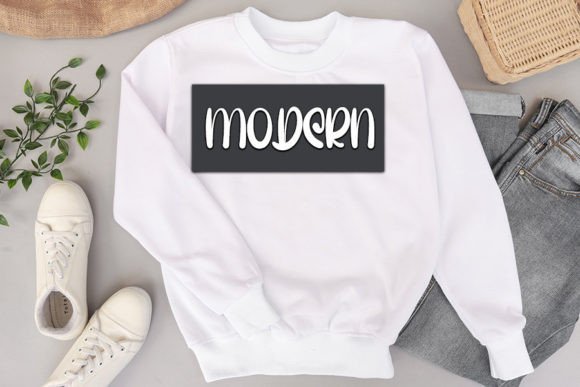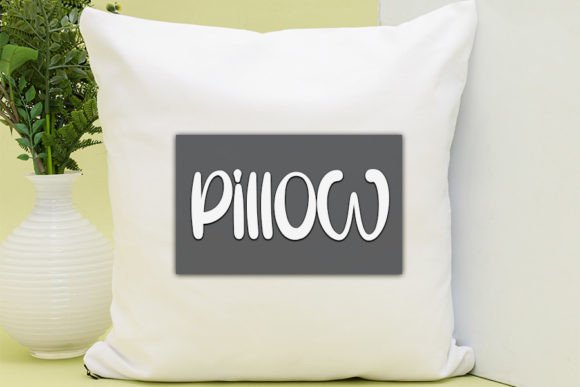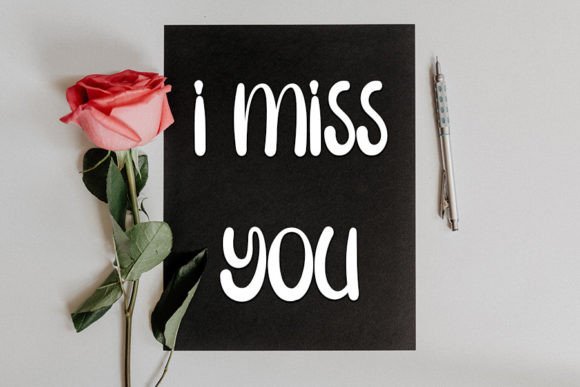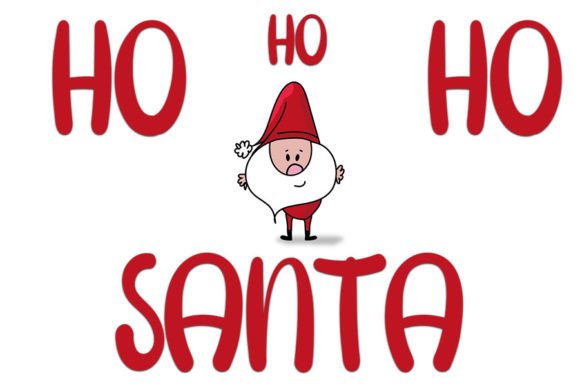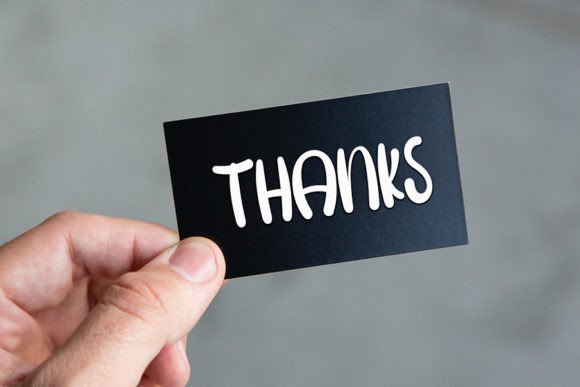
The Magic of Christmas Bliss Font
As the snowflakes gently fall and the festive lights twinkle in the night sky, the holiday season is upon us. It’s a time when creativity knows no bounds, and our imagination runs wild with ideas for the perfect gift, decoration, or celebration. And what better way to bring those ideas to life than with a font that captures the essence of the season?
Enter the Christmas Bliss Font, a beautiful handwritten font that exudes elegance and sophistication. With its unique, timeless style, this font is the perfect addition to any project, from holiday cards to gift tags, and even wedding invitations. For designers, the Christmas Bliss Font offers a valuable opportunity to add a touch of magic to their creations, making it a must-have for anyone looking to make a lasting impression.
Christmas Bliss Font Key Features
- Unique Characteristics: The Christmas Bliss Font features a unique blend of festive and elegant elements, making it perfect for holiday-themed designs.
Christmas Bliss Font Review
Overall, I was pretty excited to dive into the “Christmas Bliss Font” and see if it lives up to its name. Here are my honest thoughts:
- The font is super festive and perfect for holiday-themed designs. The combination of red and green is very eye-catching.
- The script style of the font is very playful and adds a fun touch to any design.
- The font is relatively easy to read, even at smaller sizes.
- The font feels a bit overused and common. It’s not particularly unique or original.
- The font is only available in a limited range of weights and styles, which may limit its versatility.
- The font doesn’t work as well in smaller text sizes, where it can become a bit fuzzy.
Overall, I think the “Christmas Bliss Font” is a solid choice for holiday-themed designs, but it may not be the best option for more complex or unique projects. It’s a fun, festive font that’s easy to use, but it doesn’t particularly stand out from the crowd.
The Christmas Bliss Font is perfect for creating festive holiday designs, such as:
- Christmas card invitations
- Holiday party decorations
- Seasonal social media graphics
For best results, use the Christmas Bliss Font in combination with other festive elements, such as snowflakes, holly, and candy canes.